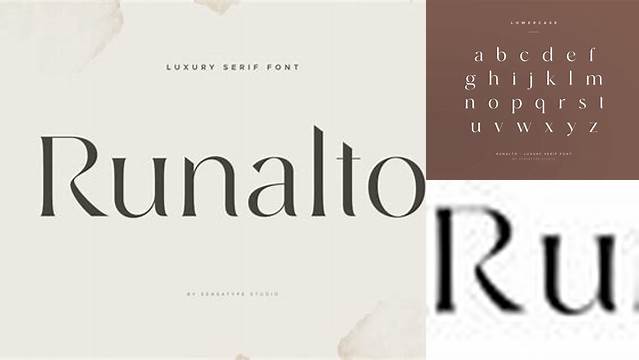
Introduction to Runalto Regular Font
Hey guys! Let's dive into the world of Runalto Regular font, a typeface that has been making waves in the design community. If you're on the hunt for a font that combines elegance with readability, Runalto Regular might just be your holy grail. This font is celebrated for its clean lines, balanced letterforms, and overall versatility, making it a fantastic choice for a wide range of projects. Whether you're designing a sleek website, crafting compelling marketing materials, or even working on a personal passion project, Runalto Regular can add that touch of sophistication you've been looking for. In this article, we'll explore everything you need to know about Runalto Regular, including its key features, ideal use cases, and, most importantly, where you can snag it for free. So, buckle up, and let's get started on this fontastic journey!
Runalto Regular isn't just another font in the crowd; it's a carefully crafted typeface that stands out due to its unique characteristics. Its design philosophy centers around creating a harmonious balance between modern aesthetics and classic typography principles. This blend results in a font that feels both contemporary and timeless, making it a reliable choice for projects that need to convey a sense of both innovation and tradition. The font's legibility is another major draw. Each letter is meticulously designed to ensure clarity, even at smaller sizes, which is crucial for body text in websites, books, and other long-form content. Moreover, Runalto Regular boasts a comprehensive character set, including a wide array of glyphs, ligatures, and alternate characters. This extensive range allows designers to play with different styles and create truly unique typographic compositions. The subtle curves and precise angles in Runalto Regular's letterforms give it a distinct personality, setting it apart from more generic typefaces. Its neutral yet elegant appearance makes it incredibly adaptable, fitting seamlessly into various design contexts. Whether you're aiming for a minimalist look or something more elaborate, Runalto Regular provides a solid foundation to build upon. The font's versatility extends beyond its aesthetic appeal; it's also technically sound, ensuring smooth rendering across different devices and platforms. This cross-platform compatibility is a significant advantage in today's digital landscape, where designs need to look consistent regardless of the viewing environment. Overall, Runalto Regular is a font that offers a compelling combination of style, functionality, and adaptability, making it a valuable asset in any designer's toolkit.
Key Features of Runalto Regular Font
When you're evaluating a font, it's crucial to understand its key features. Runalto Regular shines in several areas. First off, its readability is top-notch. The designers have clearly put a lot of thought into making sure the letters are easy to distinguish, even in long blocks of text. This makes it an excellent choice for body text in books, articles, and websites. Secondly, the font's clean and modern design gives it a versatile appeal. It’s not too flashy, but it's also not boring. It strikes a perfect balance, which means you can use it in a variety of projects, from corporate reports to creative posters. The font also boasts a comprehensive character set, including uppercase and lowercase letters, numbers, punctuation marks, and special symbols. This ensures you have all the tools you need to create complete and polished designs. Beyond the basics, Runalto Regular often includes ligatures and alternative glyphs, adding an extra layer of sophistication and customization options. These subtle details can make a big difference in the overall look and feel of your typography, allowing you to create truly unique and professional designs. Another important feature is its scalability. Runalto Regular looks great at both small and large sizes, making it suitable for everything from business cards to billboard advertisements. This scalability is a testament to the font's well-crafted design and ensures that your text will remain clear and legible, no matter the context. Finally, Runalto Regular's compatibility with various design software and operating systems is a major advantage. You can confidently use it in Adobe Creative Suite, Microsoft Office, and other popular applications without worrying about rendering issues or compatibility problems. This widespread compatibility makes Runalto Regular a reliable choice for any design workflow. In summary, the key features of Runalto Regular – readability, clean design, comprehensive character set, scalability, and compatibility – make it a standout font that can enhance a wide range of projects. It's a font that's both functional and stylish, making it a valuable addition to any designer's toolkit.
Ideal Use Cases for Runalto Regular
So, where does Runalto Regular really shine? Let's talk about the ideal use cases for this versatile font. If you're working on website design, Runalto Regular is a fantastic choice for body text. Its excellent readability ensures that your visitors can comfortably read through your content, which is crucial for user engagement. It also works beautifully in headings and subheadings, providing a clean and modern look that complements a wide range of website styles. For print materials, such as brochures, flyers, and business cards, Runalto Regular brings a professional and polished touch. Its clarity and elegance make it perfect for conveying important information in a visually appealing way. Imagine using Runalto Regular for a corporate brochure – it instantly elevates the design, making it look more sophisticated and trustworthy. In the realm of branding, consistency is key, and Runalto Regular can be a cornerstone of your brand identity. Its versatility allows you to use it across various platforms and media, ensuring a cohesive look and feel. From your logo to your social media graphics, Runalto Regular can help you establish a strong and recognizable brand presence. Editorial design is another area where Runalto Regular excels. Whether you're designing a magazine, a book, or a newsletter, this font's readability and elegant appearance make it a great choice for long-form text. It helps create a comfortable reading experience, which is essential for keeping your audience engaged. If you're involved in marketing and advertising, Runalto Regular can help your message stand out. Its clean and modern aesthetic is perfect for creating eye-catching advertisements and promotional materials. Whether it's a digital ad or a printed poster, Runalto Regular ensures your text is clear, legible, and visually appealing. For those working on personal projects, such as resumes, invitations, or personal blogs, Runalto Regular adds a touch of sophistication and professionalism. It's a font that makes your work look polished and well-crafted, helping you make a great impression. Overall, Runalto Regular's adaptability makes it suitable for a wide range of design projects. Whether you're working on a corporate website, a creative poster, or a personal invitation, this font can help you achieve a professional and stylish look. Its versatility and readability make it a go-to choice for designers looking to create impactful and visually appealing designs.
Alternatives to Runalto Regular Font
Conclusion: The Allure of Runalto Regular and Its Alternatives
In conclusion, Runalto Regular font is a fantastic typeface that offers a compelling blend of elegance, readability, and versatility. Its clean lines and balanced letterforms make it suitable for a wide range of design projects, from website body text to branding materials. Whether you're designing a corporate brochure or a personal invitation, Runalto Regular can help you achieve a professional and stylish look. The font's key features, such as its excellent readability, comprehensive character set, and scalability, make it a valuable asset in any designer's toolkit. Its compatibility with various design software and operating systems further enhances its appeal, ensuring that your designs look consistent across different platforms. While finding Runalto Regular for free may require some research and caution, the effort is well worth it for the quality and versatility this font offers. However, if you're unable to find it for free or if it doesn't quite meet your project's needs, there are plenty of excellent alternatives to consider. Fonts like Open Sans, Lato, Montserrat, Roboto, Nunito, Oswald, and Raleway offer a range of styles and characteristics, ensuring that you can find a typeface that perfectly complements your design goals. These alternatives provide a balance of readability, aesthetic appeal, and functionality, making them reliable choices for a variety of projects. Exploring these options can expand your typographic palette and help you create even more impactful designs. Ultimately, the allure of Runalto Regular and its alternatives lies in their ability to enhance the visual communication of your message. Whether you're aiming for a modern, classic, or elegant look, the right font can make a significant difference in the overall impact of your design. By carefully considering the key features and ideal use cases of different typefaces, you can make informed decisions that elevate your work and help you achieve your creative vision. So, dive into the world of typography, explore the possibilities, and let your designs speak volumes with the perfect font choice.